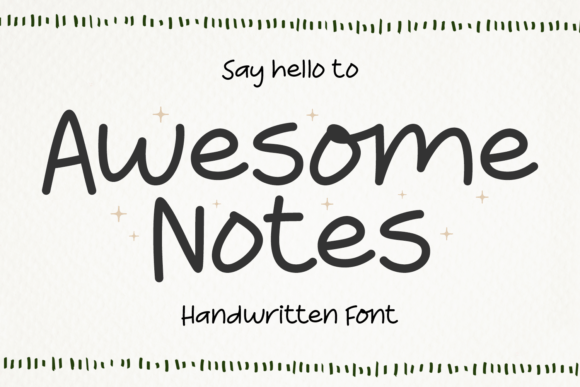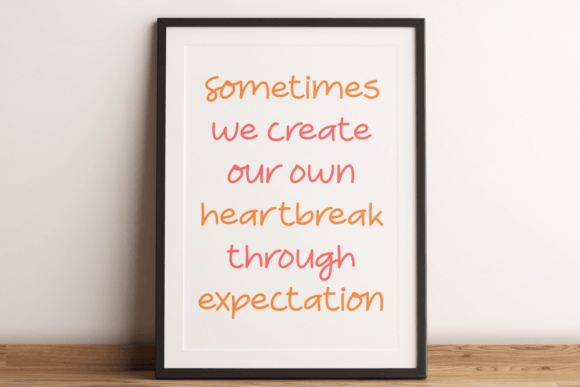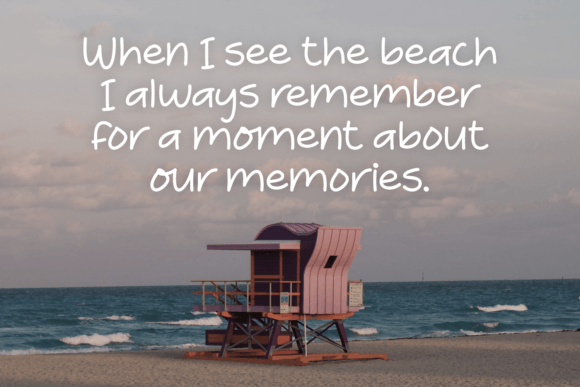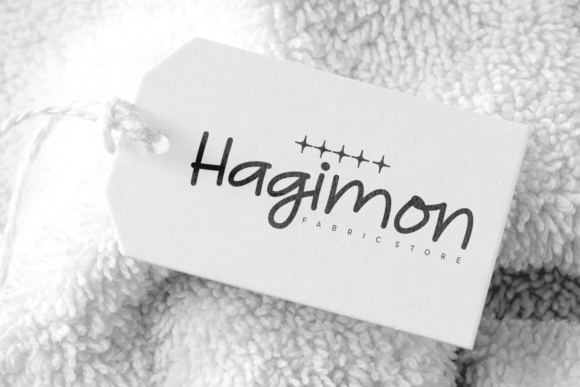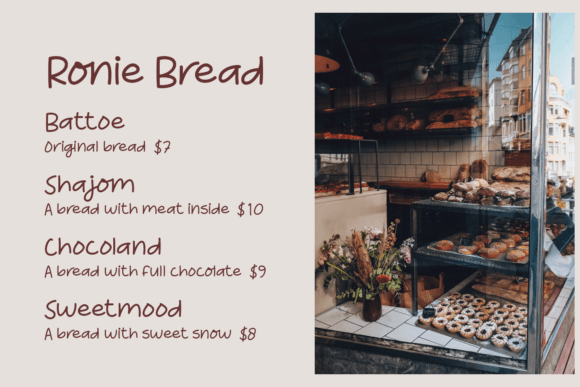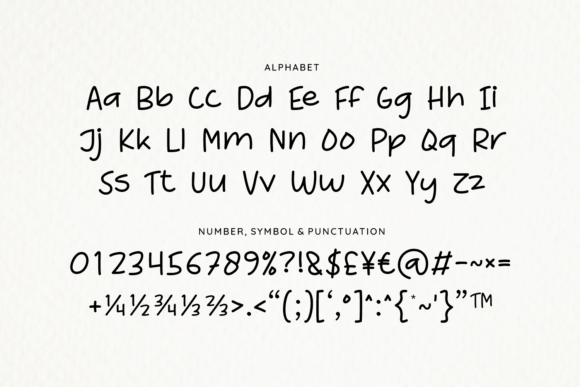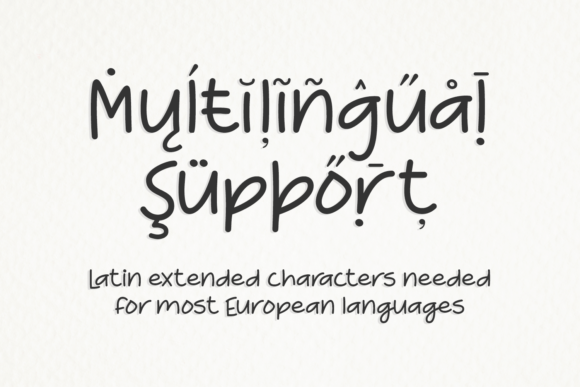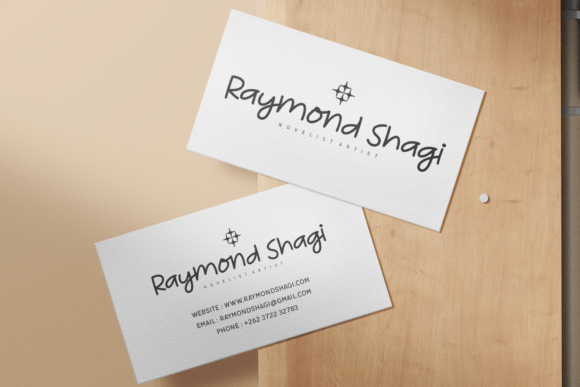
About Awesome Notes Font
Awesome Notes is a fun and casual handwritten font. Whether you’re using it for crafts, digital design, presentations, or making greeting cards, this font has the potential to become your favorite go-to font, no matter the occasion!